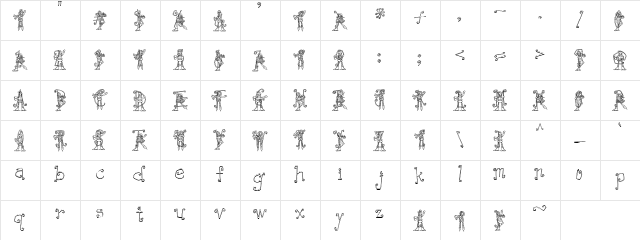
LDJ Ice Skating Regular Font Preview
LDJ Ice Skating Regular
LDJ Ice Skating Regular Font Details
Design Context for LDJ Ice Skating Typeface
LDJ Ice Skating is a composed and adaptable typeface that performs quietly and consistently across a wide range of design contexts.